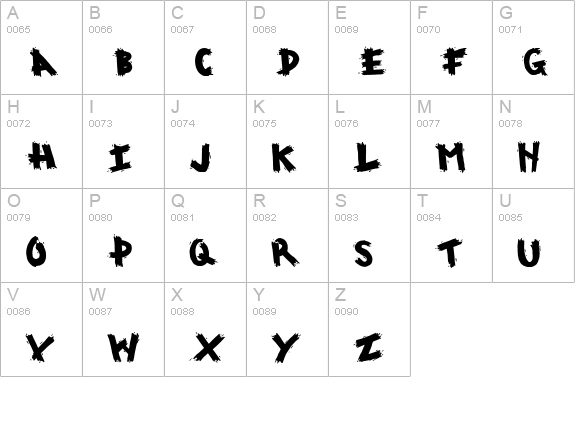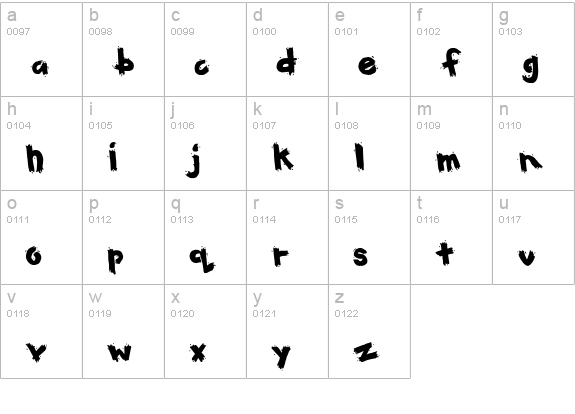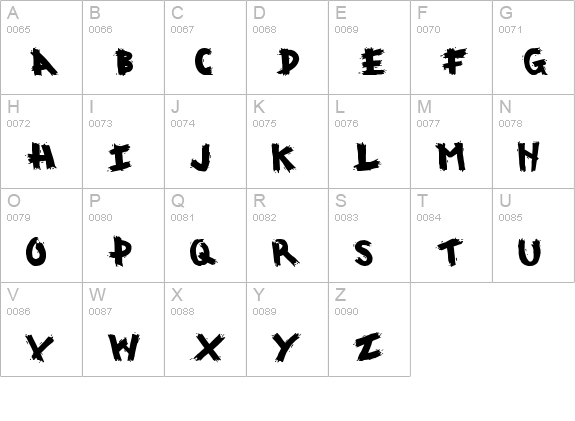
CK Paintbrush Font Details
The CK Paintbrush font is a charming and playful typeface that exudes creativity and artistic flair. Its whimsical brush strokes give a hand-painted appearance, perfect for adding a personal touch to your designs. Whether you're working on invitations, posters, or branding materials, this font will bring a unique and eye-catching element to your projects. CK Paintbrush is freely available to download at FontsMarket.com, making it easily accessible for designers and creatives looking to add a touch of whimsy to their work. With its versatile and engaging style, this font is sure to inspire endless creativity and make your designs stand out from the crowd. Let CK Paintbrush bring a dash of artistic flair to your next project and watch it come to life with its playful charm.